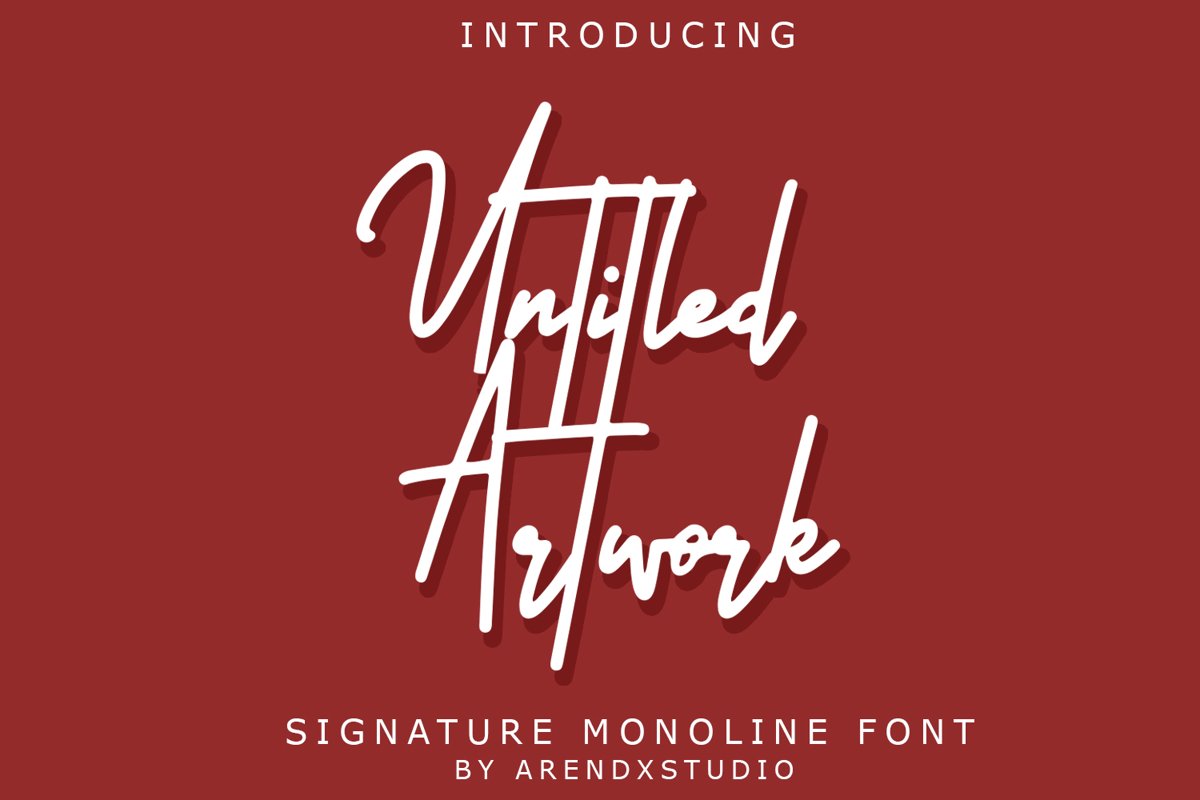
Untitled Artwork Signature
Untitled Artwork
Introducing our newest Untitled Artwork Signature
Untitled Artwork Signature is made as elegant as possible for the use of your design project
Untitled Artwork offers a variety of design projects, including logos & amps, branding, wedding designs, social media posts, advertisements, product designs, magazines and more.